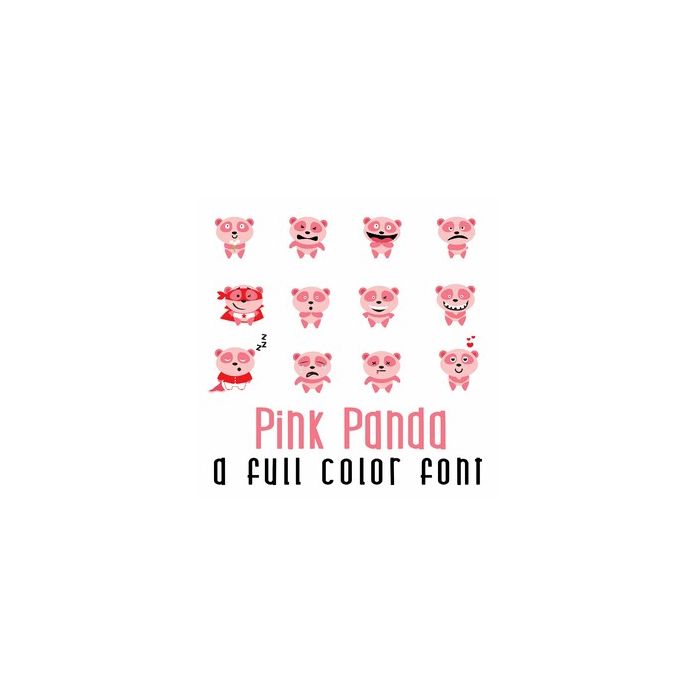
This adorable full-color doodlebat font features 26 pink panda emojis. Perfect for cards, crafts, gifts, decor, scrapbook pages, planner stickers, and more!